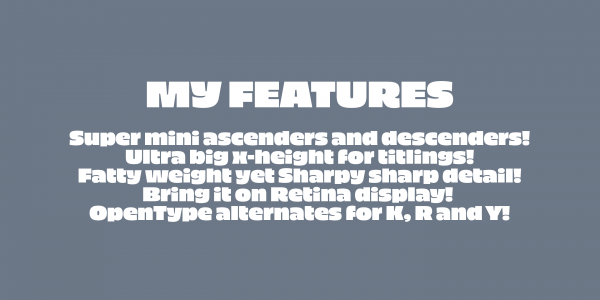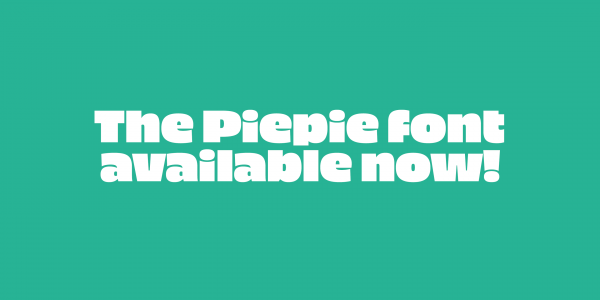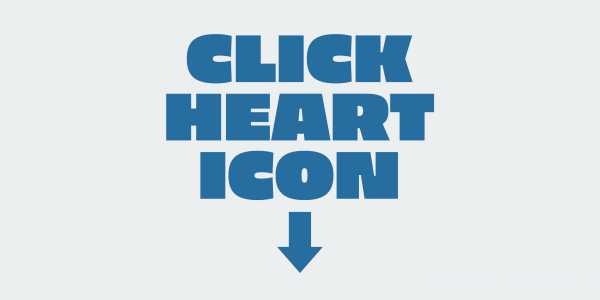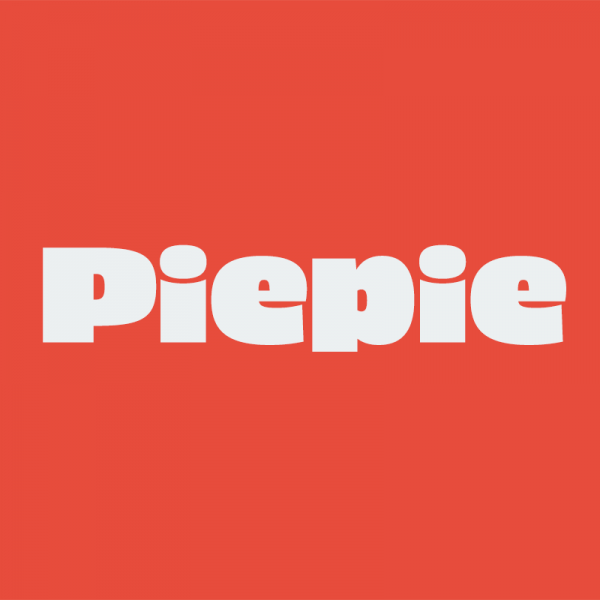
The Super Fat Piepie Typeface from Flat-it
The Piepie typeface, a super fat and super sassy font for titlings and captions from type foundry Flat-it.
Ryoichi Tsunekawa is a Japanese type designer and founder of the Flat-it font foundry. The creative designer has created the Piepie typeface in 2014. It’s a super fat and super sassy font intended for titlings and captions.
Its OpenType character set consists of 461 glyphs. This playful and very heavy typeface has super mini ascenders and descenders, a big x-height, and alternate characters for the letters: K, R, and Y!
Piepie, a very heavy typeface for titlings and captions from type foundry Flat-it.
A font with super mini ascenders and descenders, ultra big x-height for titlings, and some OpenType alternates.
This is the playful Piepie font from Ryoichi Tsunekawa's Flat-it type foundry.
This is the playful Piepie font from Ryoichi Tsunekawa’s Flat-it type foundry.
Example of use.
Piepie, a super fat and super sassy typeface by Ryoichi Tsunekawa.